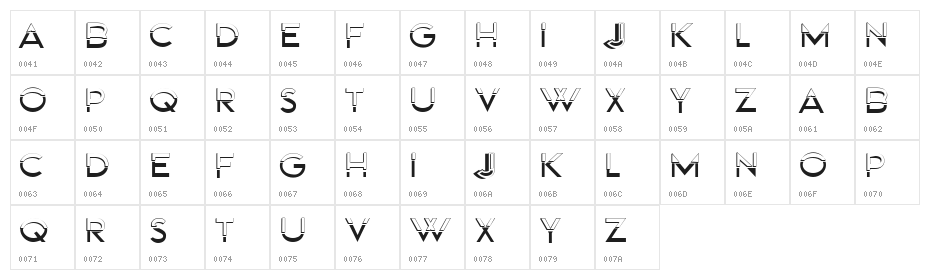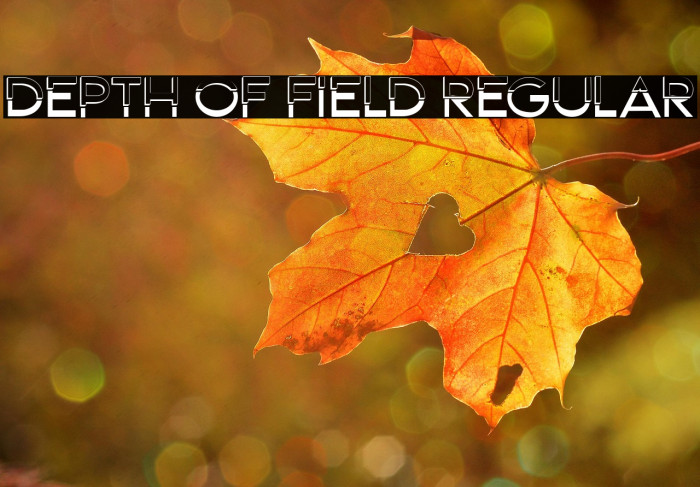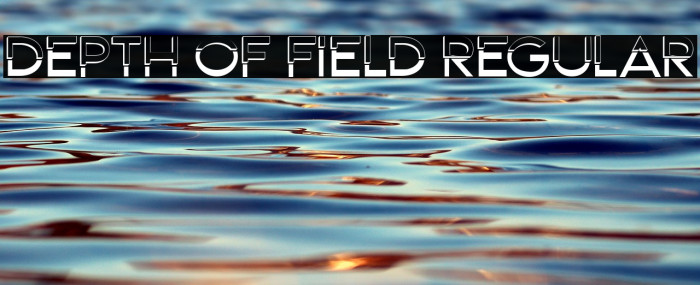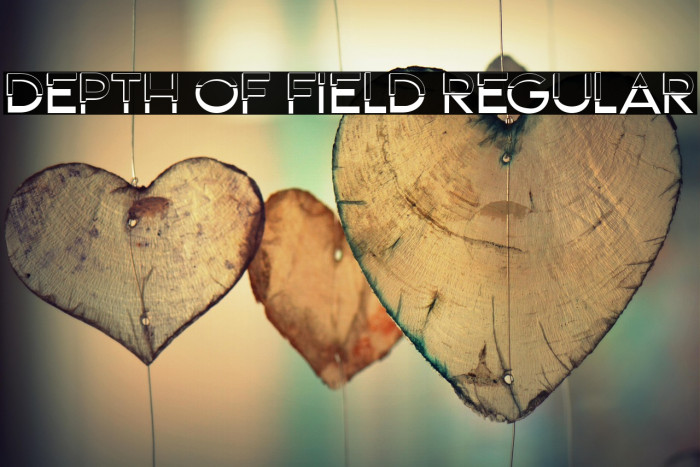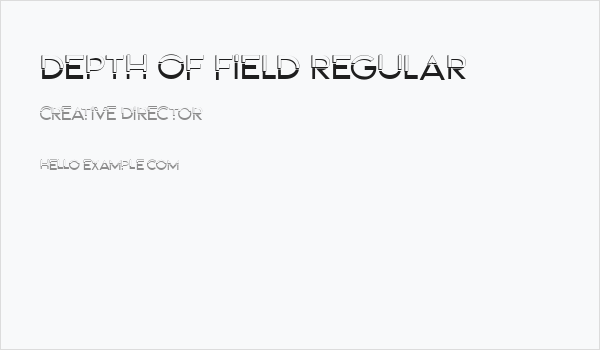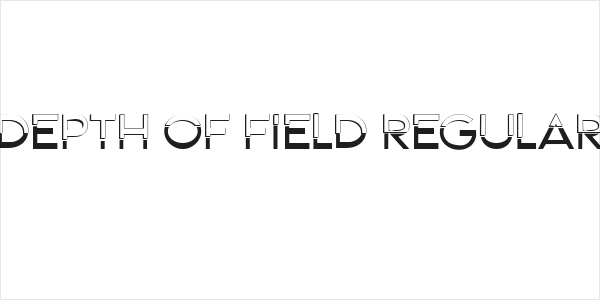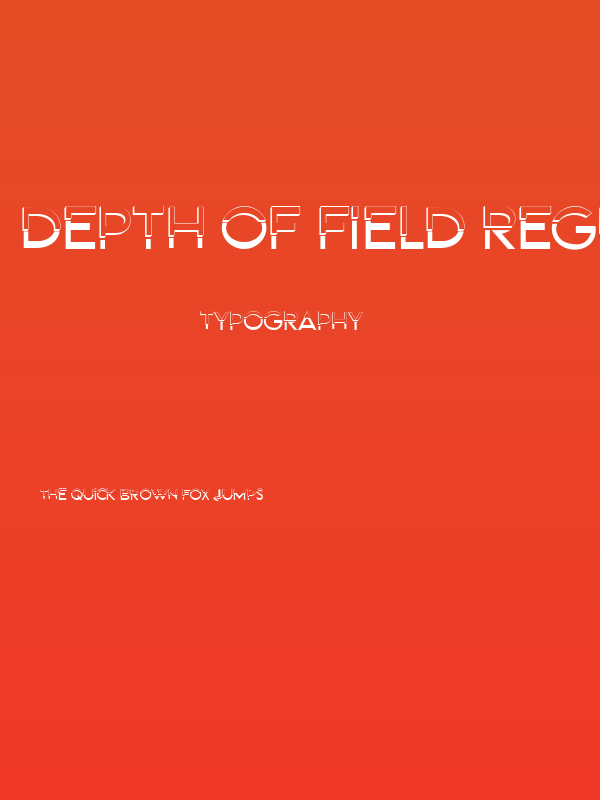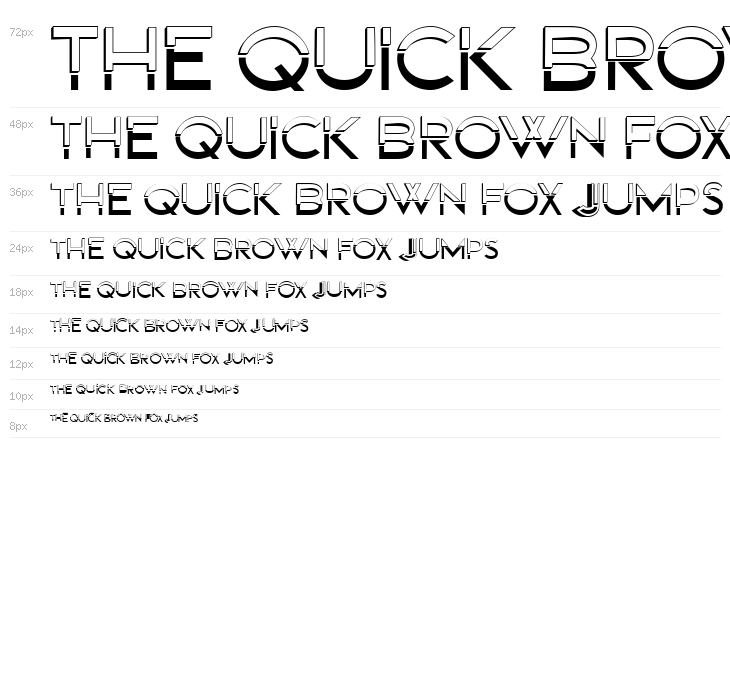
Depth of Field Regular Font
Depth of Field Regular Description
This font features a unique and modern design with a three-dimensional effect that creates a sense of depth. The characters are bold and have a distinct shadow that gives them a layered appearance. The uppercase letters are consistent in height and width, providing a uniform look. The font's geometric shapes and clean lines make it highly legible, while the shadow effect adds a touch of sophistication and creativity. This style is ideal for making a statement in any design project, offering a balance between readability and artistic flair.
| Proposed Projects | Ideal for headlines, posters, branding, and any project requiring a bold, eye-catching typeface. |